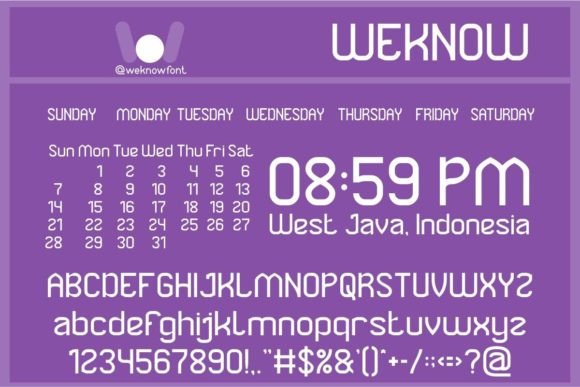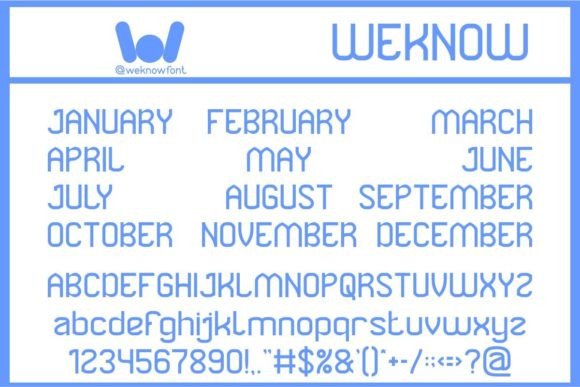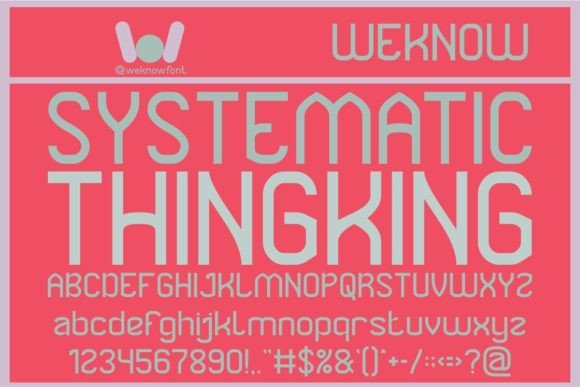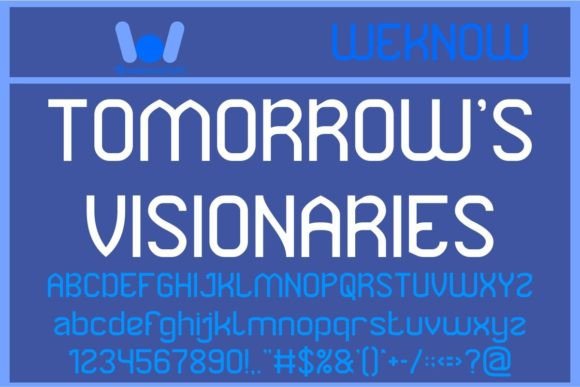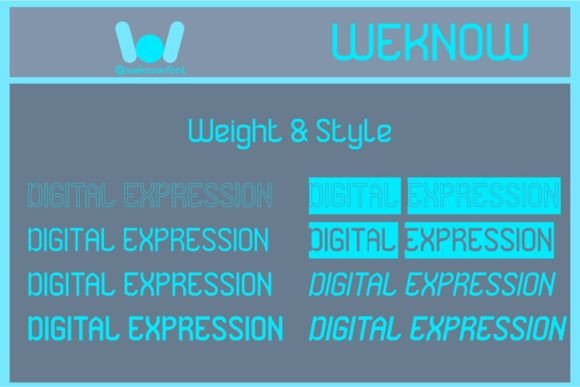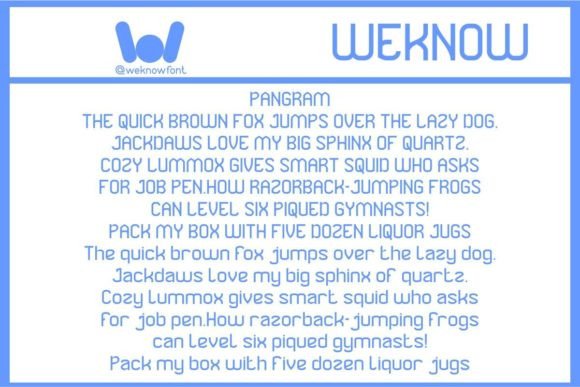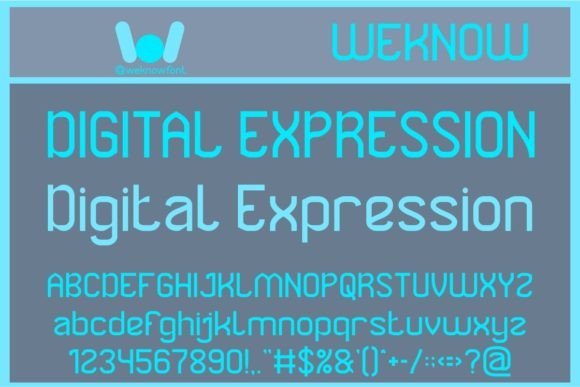
Unlocking the Power of Digital Expression: A Futuristic Font for Modern Designers
In the rapidly evolving world of digital design, the right font can make all the difference in capturing the essence of innovation and modernity. Introducing Digital Expression, a revolutionary sans-serif font that embodies the spirit of the digital age. This creatively fancy font is meticulously crafted to provide a contemporary appeal, making it an ideal choice for designers seeking to push the boundaries of their imaginative designs.
The Evolution of Digital Expression
Digital Expression is more than just a font – it’s an experience. Its unique, modern design is tailored to capture the future, making it a standout in various applications. From logos and logotypes that define corporate and brand identities, to chic apparel designs that demand attention, Digital Expression is the perfect choice. Its versatility shines through in vibrant posters, music, movies, games, magazines, books, and comics, providing a stunning impact that leaves a lasting impression.
Endless Possibilities with Digital Expression
One of the most significant advantages of Digital Expression is its adaptability. This font can be used in a wide range of design projects, including:
- Logo and Logotype Design: Create a captivating logo or logotype that defines your corporate and brand identity with a unique and modern twist.
- Apparel Design: Elevate your apparel designs with a chic and contemporary font that demands attention.
- Posters and Advertising: Make a stunning impact with vibrant posters and advertisements that showcase your brand’s personality.
- Entertainment: Bring your music, movies, and games to life with a font that resonates with your audience.
- Publishing: Add a touch of modernity to your magazines, books, and comics with a font that stands out.
- Social Media: Spruce up your YouTube and Instagram handles with a font that reflects your brand’s personality.
Why Choose Digital Expression?
For web designers craving a futuristic appeal, Digital Expression is a match made in creative heaven. This font is designed to provide a unique and modern display that captures the essence of innovation. With Digital Expression, you can:
- Enhance Your Brand Identity: Create a lasting impression with a font that reflects your brand’s personality and values.
- Stay Ahead of the Curve: Keep up with the latest design trends and technologies with a font that’s designed for the digital age.
- Boost Creativity: Unlock your creative potential with a font that inspires imagination and innovation.
Tips for Using Digital Expression
To get the most out of Digital Expression, consider the following tips:
- Experiment with Sizes: Play with different font sizes to create visual hierarchy and emphasis.
- Mix and Match: Combine Digital Expression with other fonts to create a unique and visually appealing design.
- Pay Attention to Kerning: Adjust the kerning to ensure that your text is legible and visually appealing.
Digital Expression is more than just a font – it’s a design experience. With its unique, modern design and versatility, this font is perfect for designers seeking to push the boundaries of their imaginative designs. Whether you’re a seasoned designer or just starting out, Digital Expression is a must-have font that will take your designs to the next level. So why wait? Unlock the power of Digital Expression and let your design project speak the language of innovation.